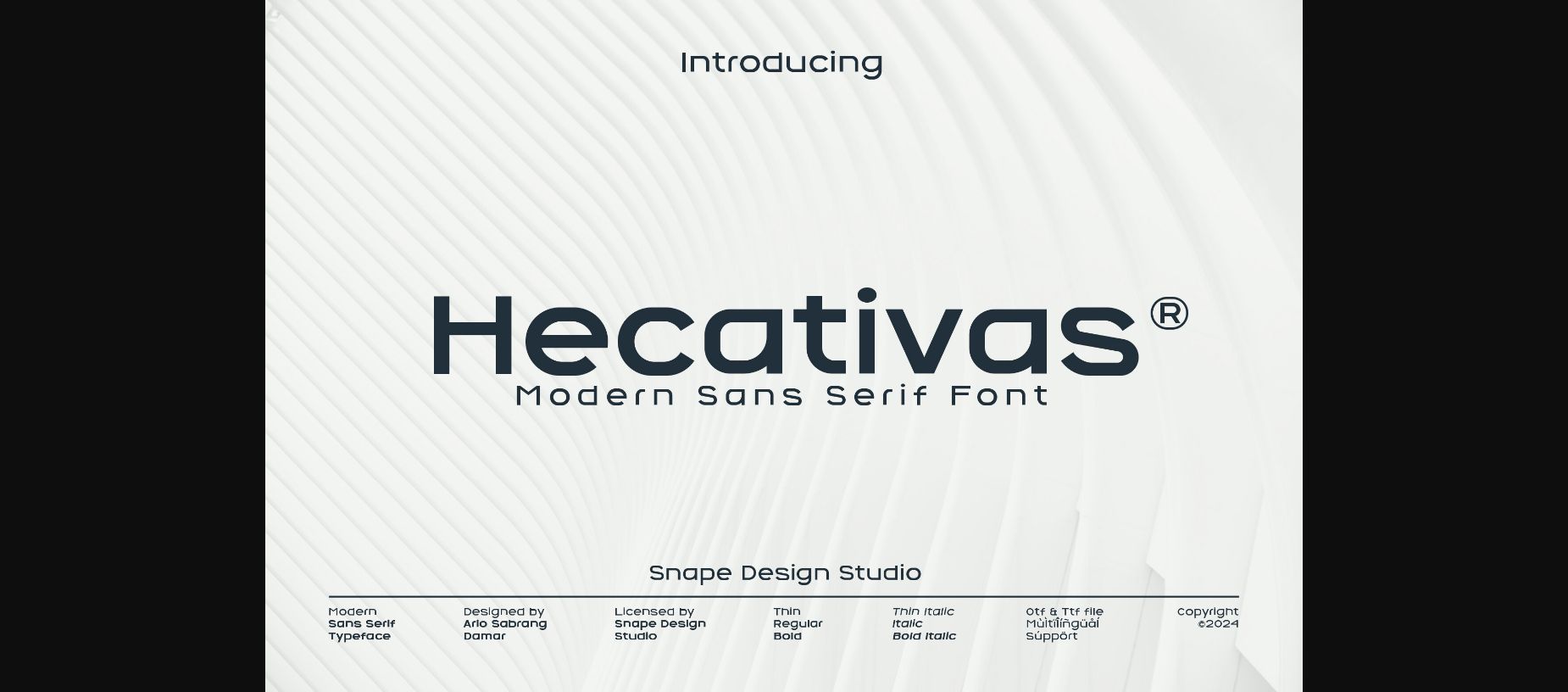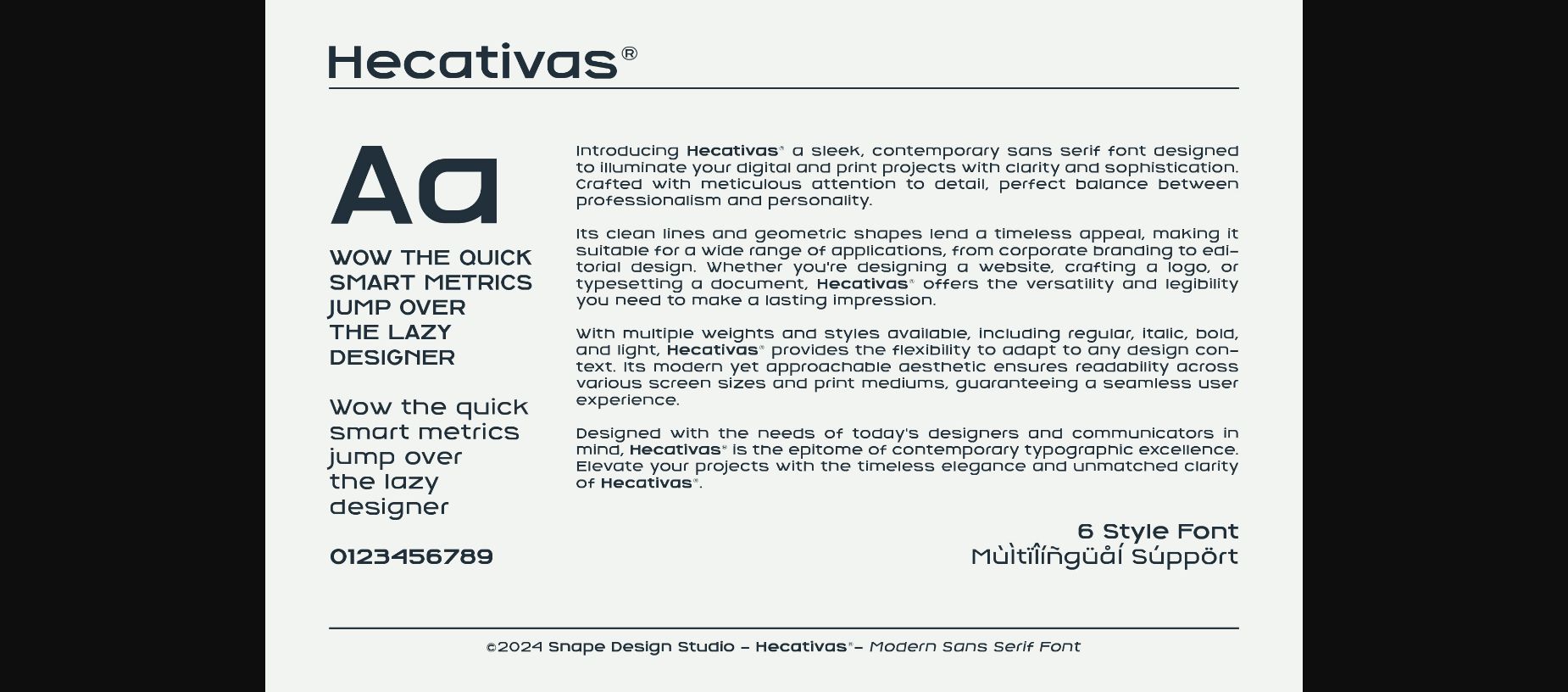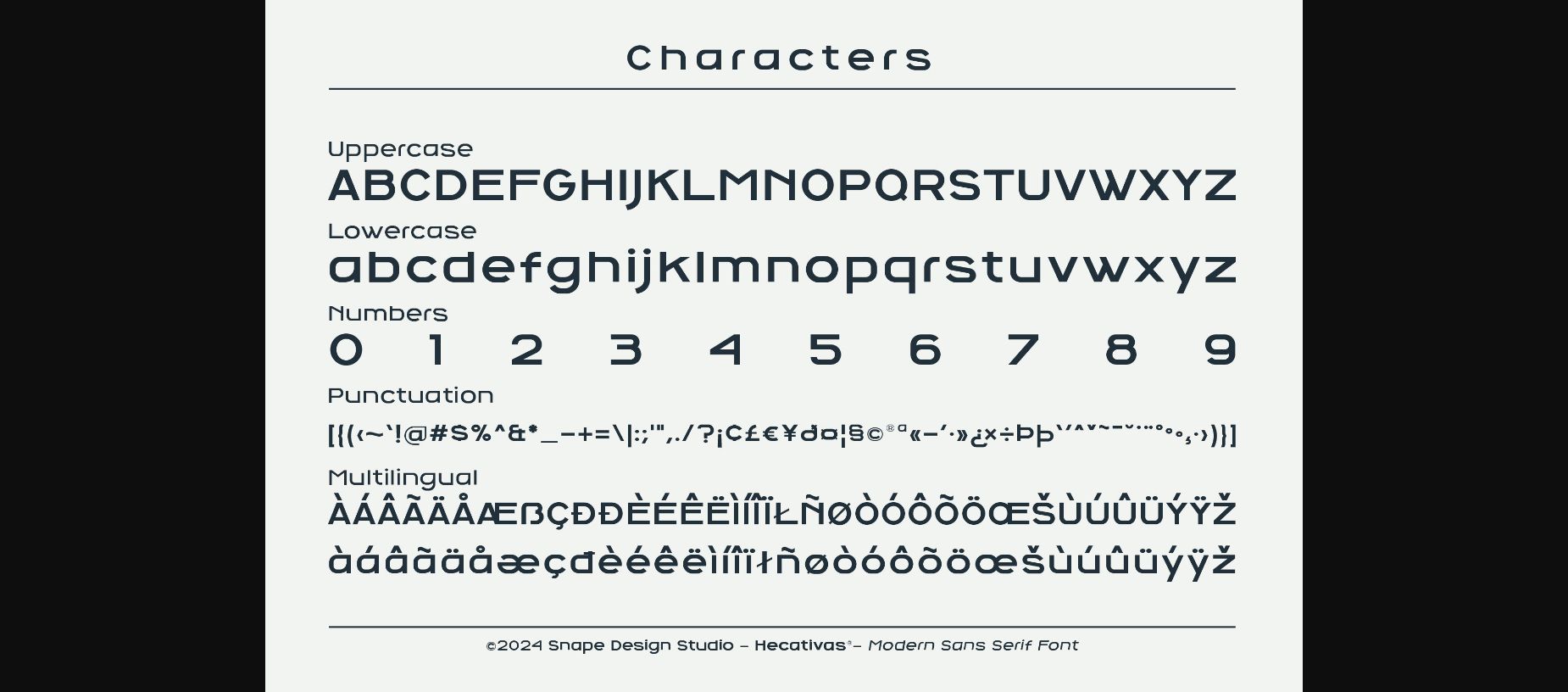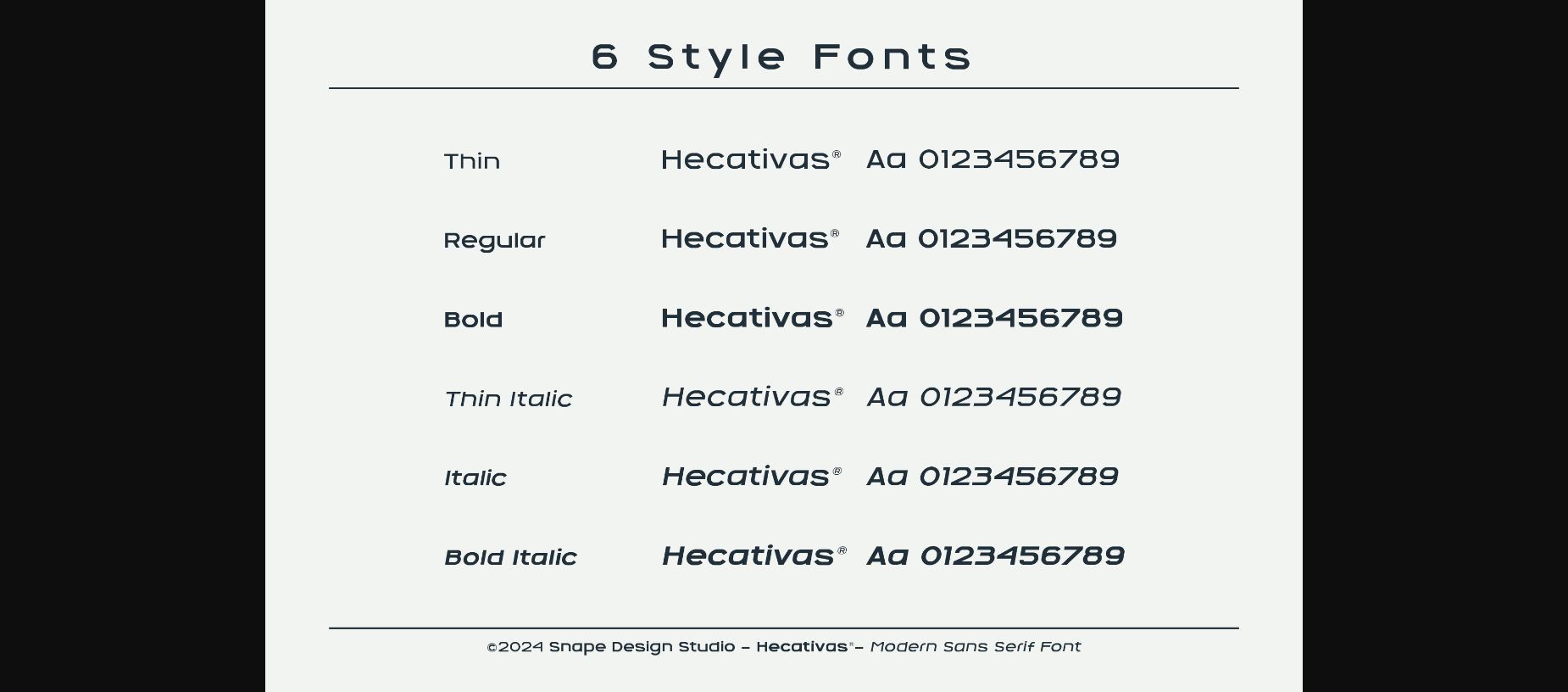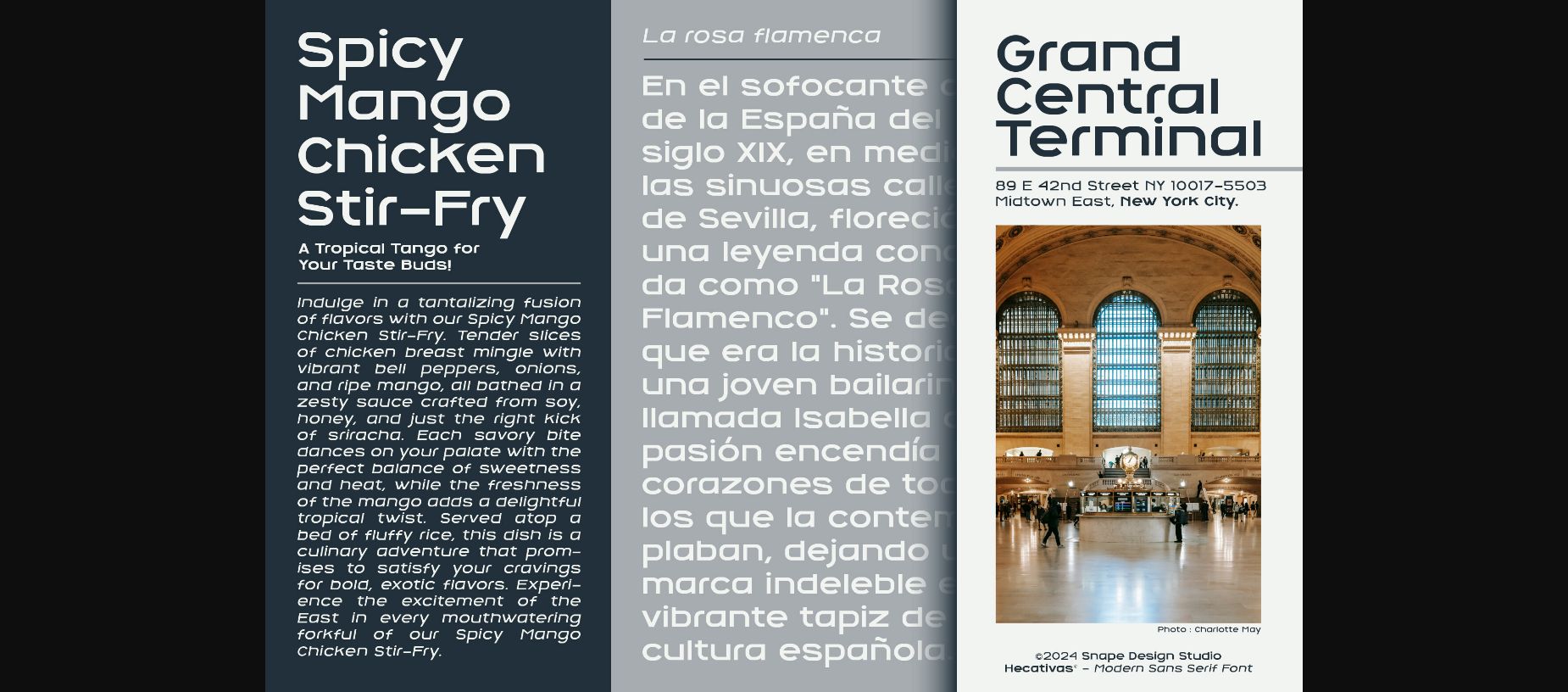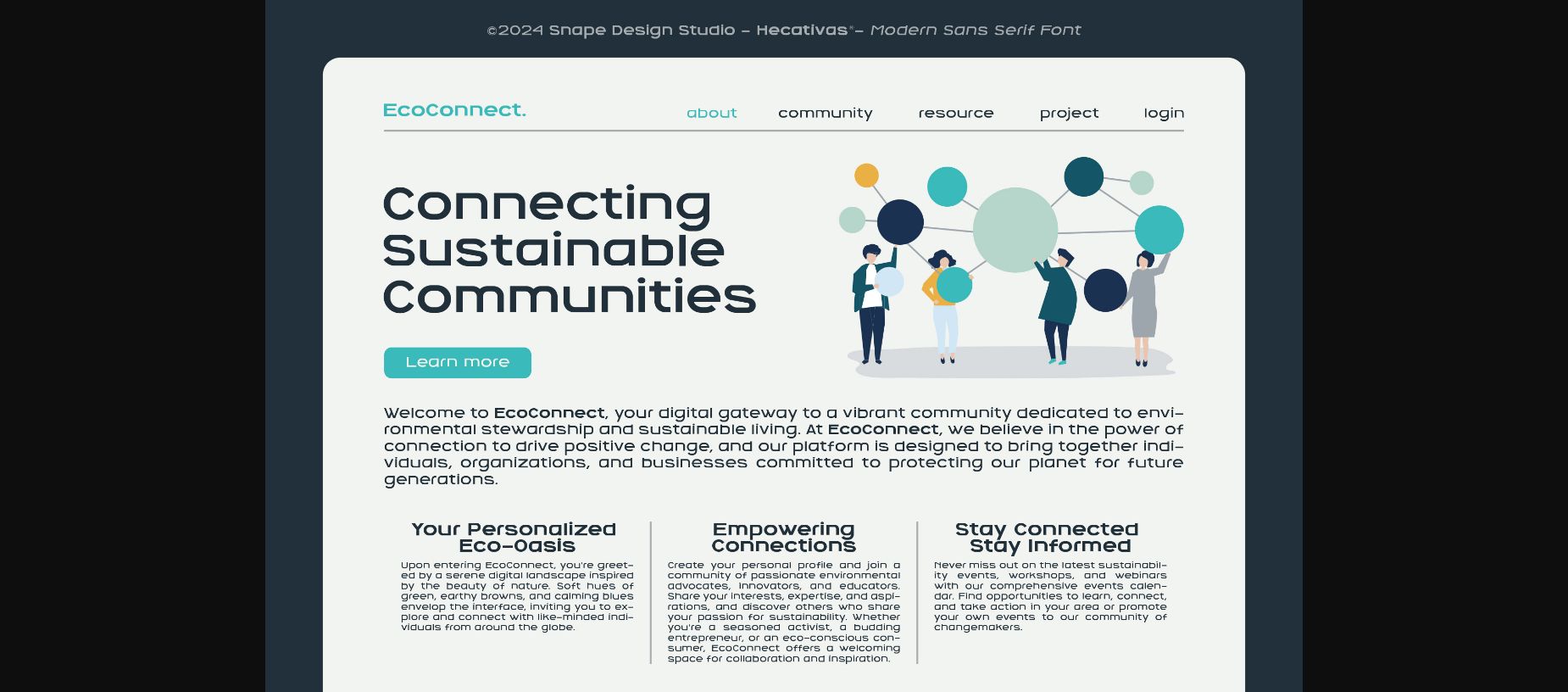
About Hecativas Font
Hecativas, a sleek sans serif font, offers a modern and minimalist approach to typography. With clean lines and contemporary elegance, it brings a touch of sophistication to any design project. Perfect for those seeking simplicity with style.